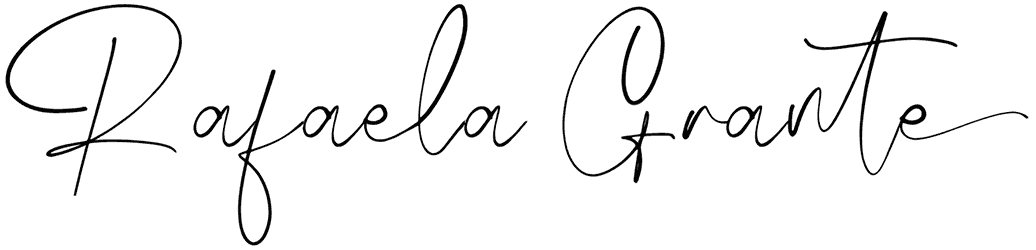
Rafaela Grante Font
Everything you need to get away from the mechanical and machine space and get closer to the human world is gathered in the Rafaela Grante font. This handwritten font empowers your message and gives you a high degree of control over the audience’s reaction.
Therefore, you can use both of its styles to design content that needs focus and contains a human meaning. Although this script font is a bit hard to read, it works very well on packages and letters.